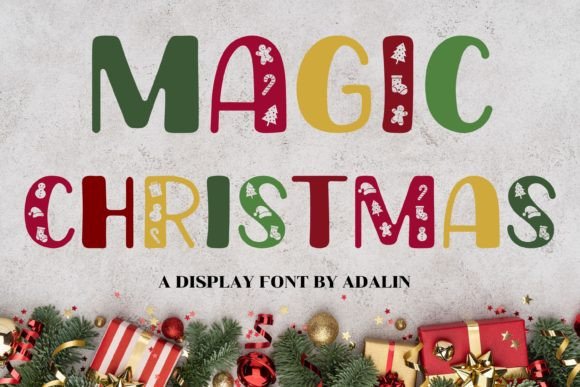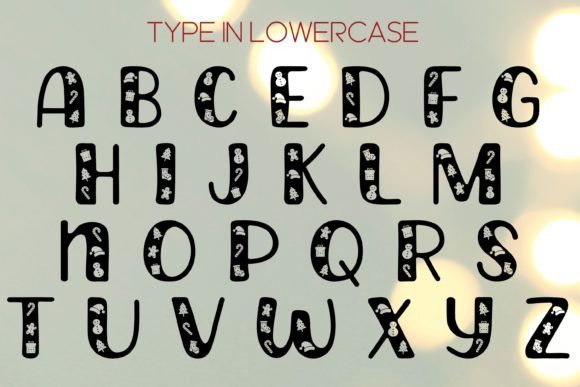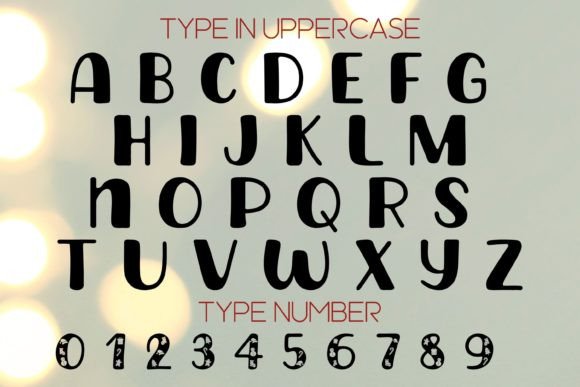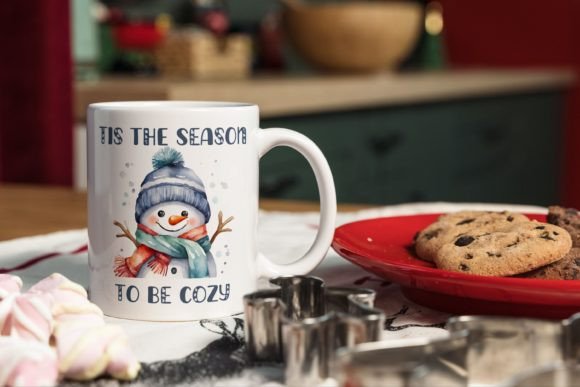
Magic Christmas Font
About the Magic Christmas Font
The Magic Christmas Font offers a perfect balance of form and function for your design needs. Magic Christmas is a cute decorative Christmas Font ideal for crafting, and perfect for designs that need a playful, cheery accent. Daisy Retro is suitable for book covers, posters, packaging, merchandise, logotypes, and many more!
Its playful, rounded forms make it particularly well-suited for Christmas-themed projects, children’s books, festive packaging, and social media graphics. Avoid using it for large bodies of text or UI elements; its decorative nature reduces readability at smaller sizes.
Magic Christmas pairs effectively with clean sans-serif fonts like Open Sans for a balanced contrast, or a more elegant serif like Playfair Display for a sophisticated yet festive feel. A simple, geometric sans-serif would also provide a modern counterpoint.
The font’s overall personality is cheerful and whimsical, best suited for brands targeting a young, light-hearted audience or projects requiring a festive, joyful aesthetic.
Magic Christmas Font Usage Examples
Magic Christmas Font Example